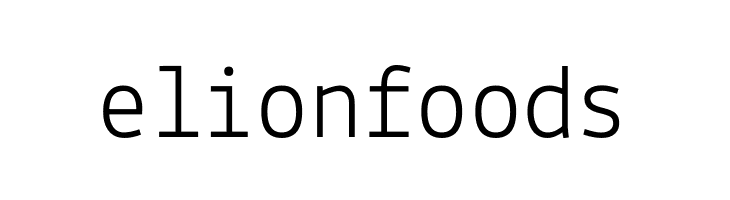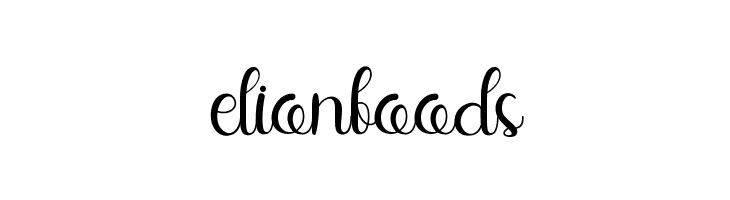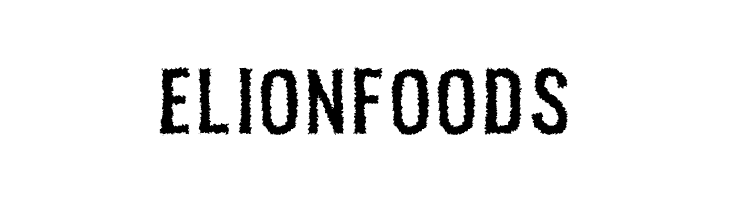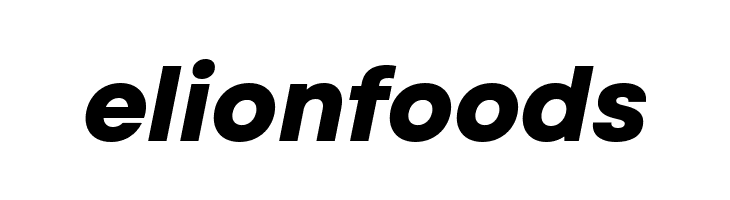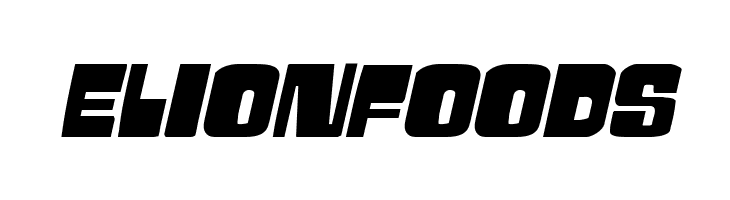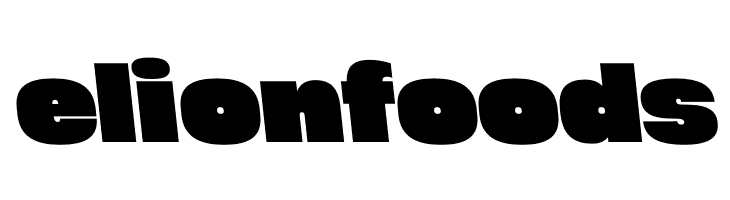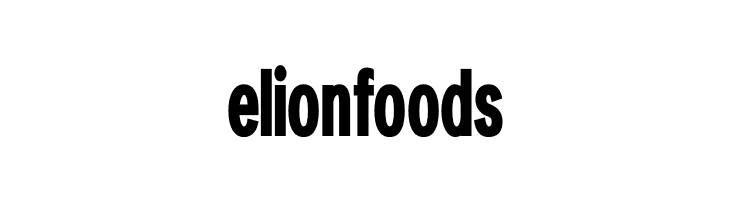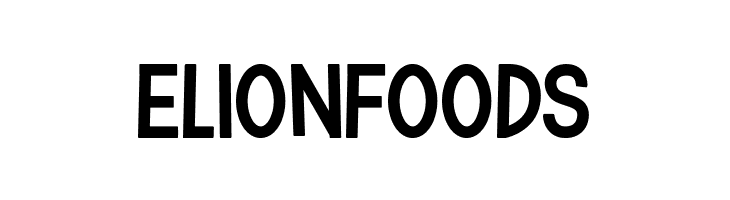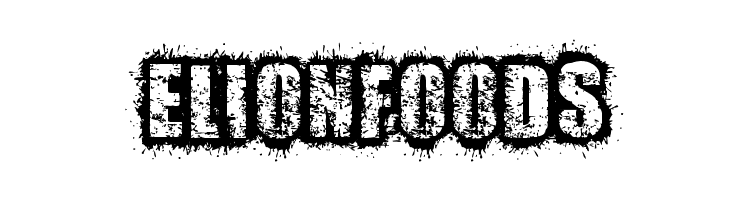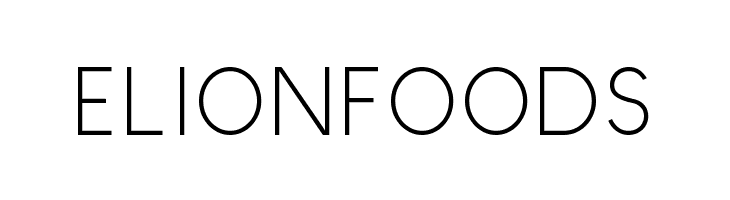
A bold, three-dimensional block font ideal for impactful headlines.
A clean, modern monospaced font with uniform spacing and geometric influence.
A playful, handwritten font with rounded, smooth letterforms.
A bold, decorative font with thick outlines and hollow interiors, perfect for striking headlines.
A bold, geometric font with a three-dimensional effect and sharp angles.
A playful, whimsical font combining script and sans-serif elements.
A playful and elegant font combining script and sans-serif elements.
A bold, expanded font with geometric shapes and uniform strokes, perfect for attention-grabbing designs.
A bold, textured font with a vintage, hand-crafted appearance.
A bold, italic sans-serif font with a modern and dynamic style.
A versatile font combining elegant script with bold serif styles.
A bold, wide, and italic font with a dynamic and impactful style.
A bold, blocky font ideal for impactful headlines and attention-grabbing designs.
A bold, compressed font perfect for impactful headlines.
A bold, modern font with strong, uniform strokes ideal for impactful text.
A versatile font combining decorative curls with bold, modern characters.
A playful font combining decorative script and bold sans-serif styles.
A classic serif font with elegant, sharp serifs and slight stroke contrast.
A modern, geometric font with rounded edges and uniform stroke width.
A modern, geometric font with clean lines and minimalist design.
A modern, geometric sans-serif font with clean lines and a minimalist style.
A modern, geometric font with bold, clean lines and a professional appearance.
A clean, minimalist font with thin lines and balanced spacing.
Bold, expressive designs combining typography with illustrative elements for a dynamic, rebellious aesthetic.
A versatile font combining ornate script and bold sans-serif styles.
A versatile font combining elegant script and bold serif styles.
A bold, distressed stencil font with a vintage, industrial feel.
A bold, distressed font with a grungy, textured appearance.
A bold, textured font with a dynamic, distorted appearance.
A dual-style font combining decorative geometric letters with a clean sans-serif typeface.
A modern font combining geometric uppercase with cursive lowercase styles.
A bold, blocky font with thick, uniform strokes and slightly rounded edges.
A bold, 3D decorative font with a strong, impactful presence.
A bold, inline font with a grunge texture, combining modern geometry with vintage industrial style.